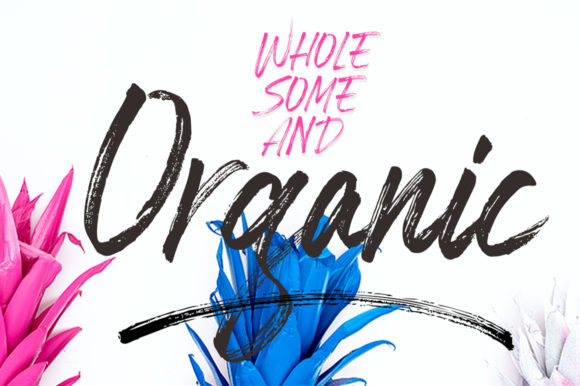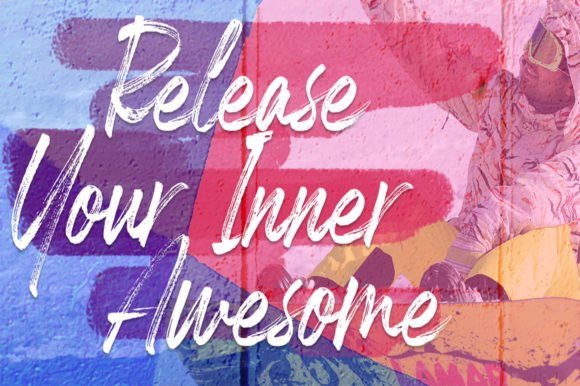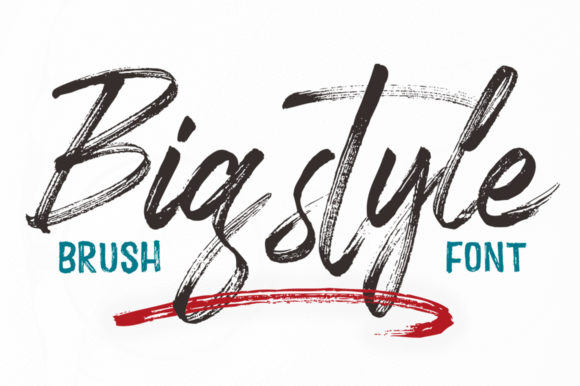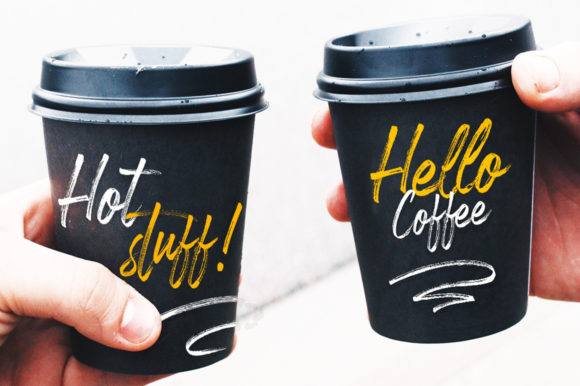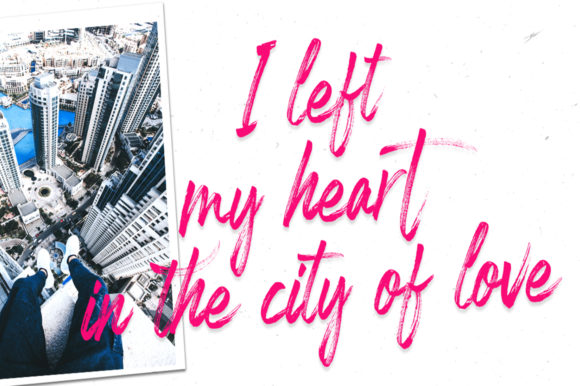
Marstain Font
About Marstain Font
Marstain is a casual, fun handwritten font, created by using a brush pen. Clean and a little bit quirky, this font is the perfect fit for all of your logos, branding, social media, and crafty DIY projects.